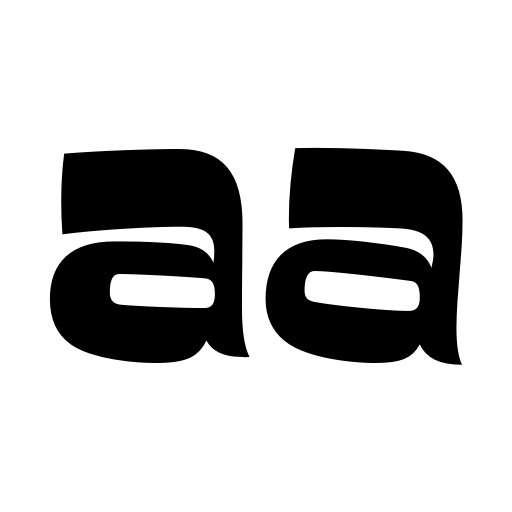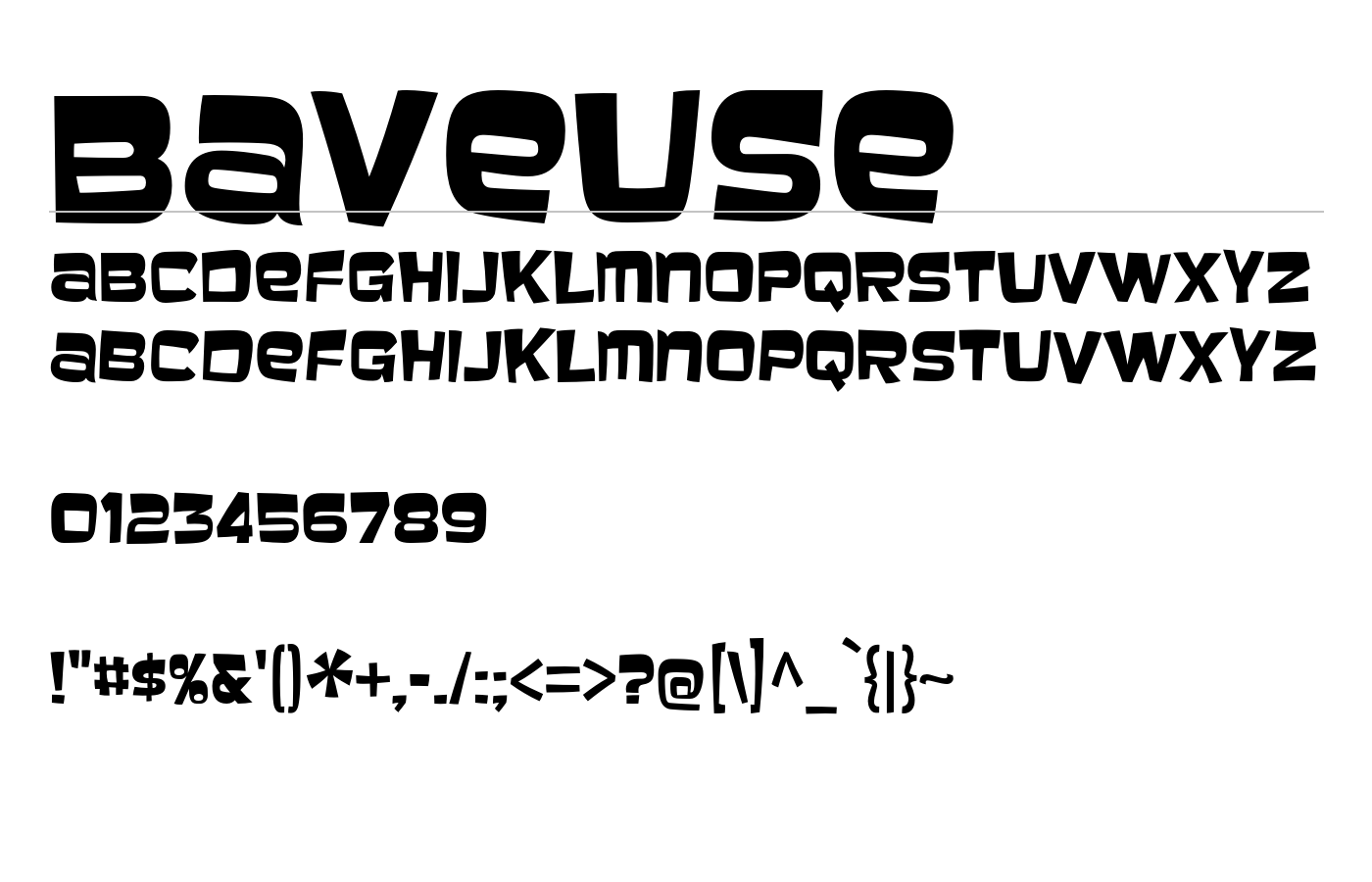
Baveuse is a bold, quirky sans serif font with a playful and slightly irregular design, featuring wide letterforms and noticeable stroke contrast that add character and energy. Its unique shapes and chunky appearance make it perfect for eye-catching headlines, logos, and creative projects that want to convey a fun, modern, and informal vibe. This font stands out best in display use where personality and boldness are key.
Baveuse Font
About Baveuse Font